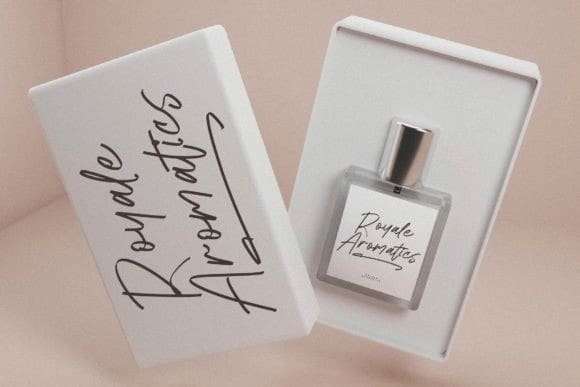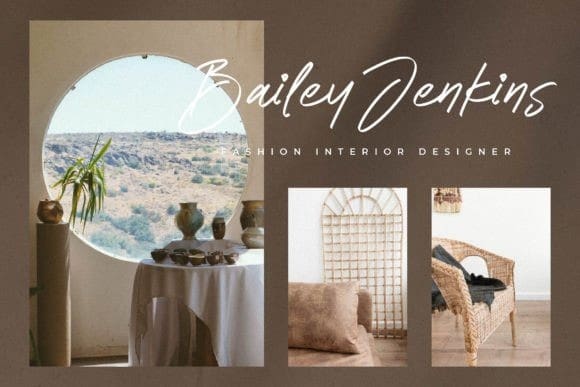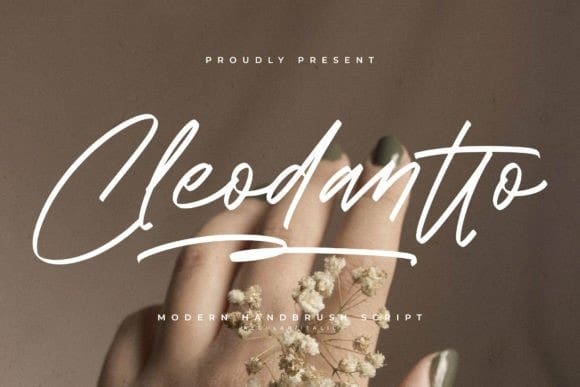
Cleodantto Handwritten Font
Cleodantto Handwritten Font is a stylish and incredibly elegant script font. It looks stunning on wedding invitations, thank you cards, quotes, greeting cards, logos, business cards and every other design which needs a handwritten touch